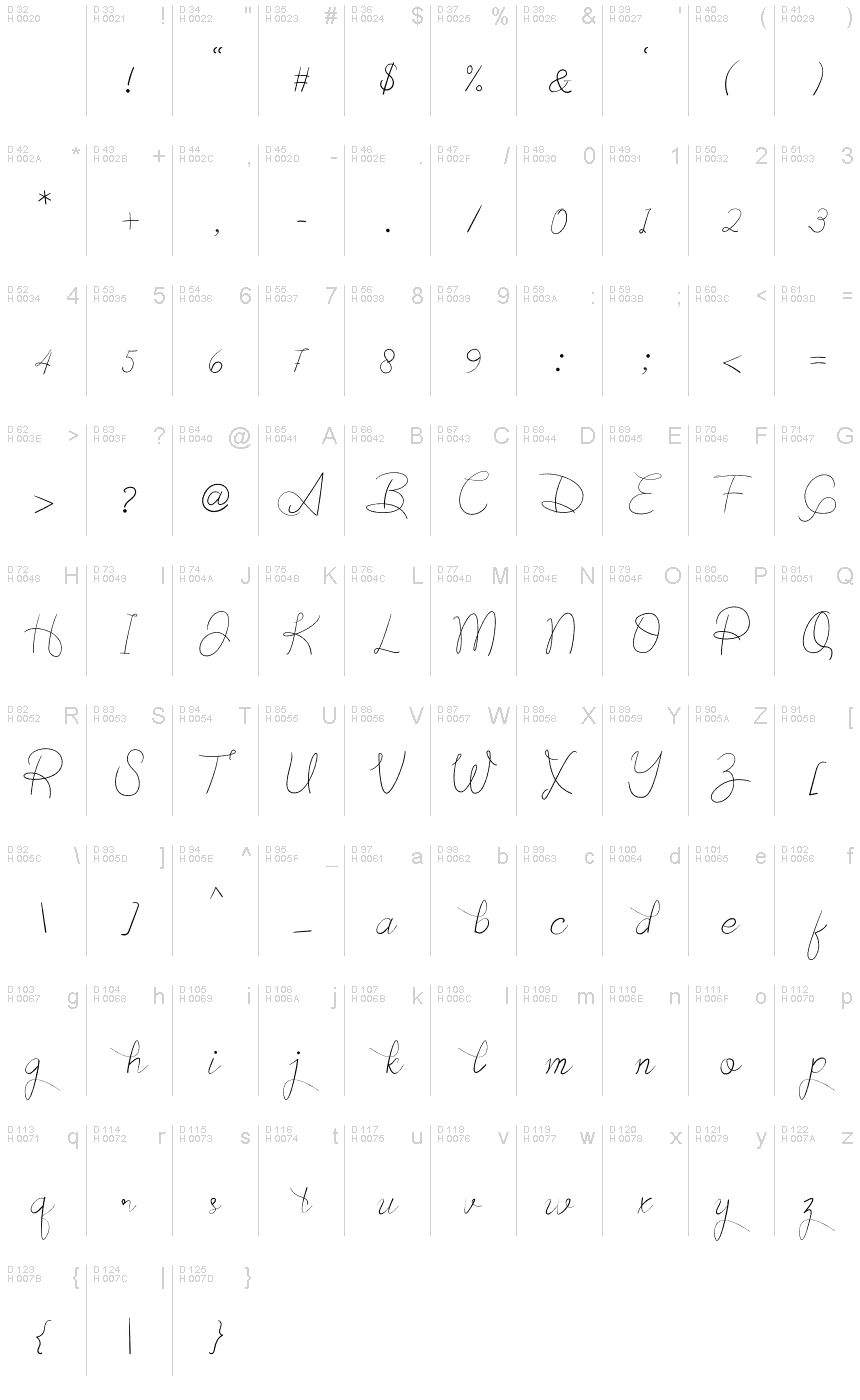
Authentic
Authentic is a fashionable and flowing script font designed by Erik Studio. This font is neatly crafted and highly detailed. Whatever the topic, this font will be a wonderful asset to your font library, as it has the potential to enhance any creation.